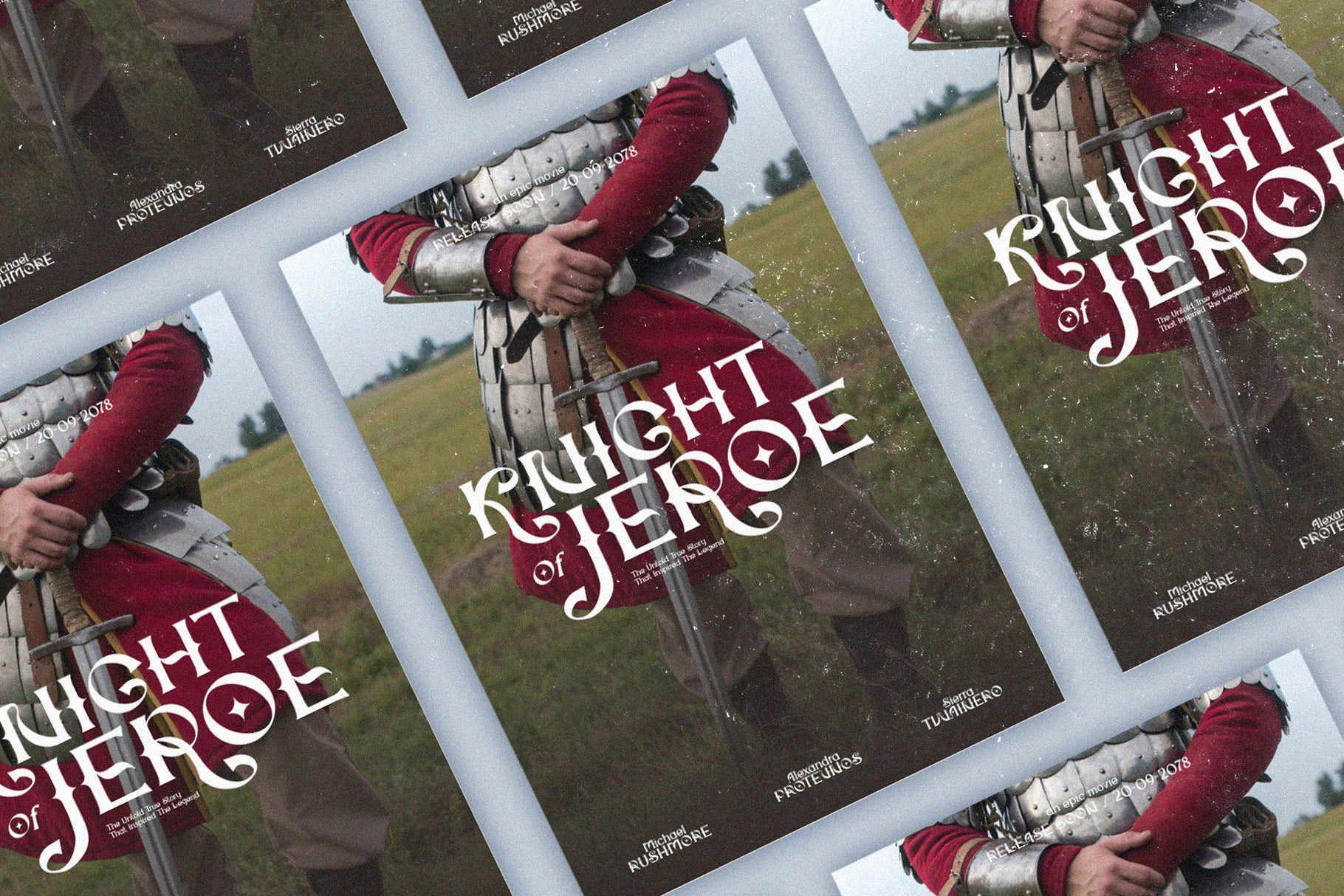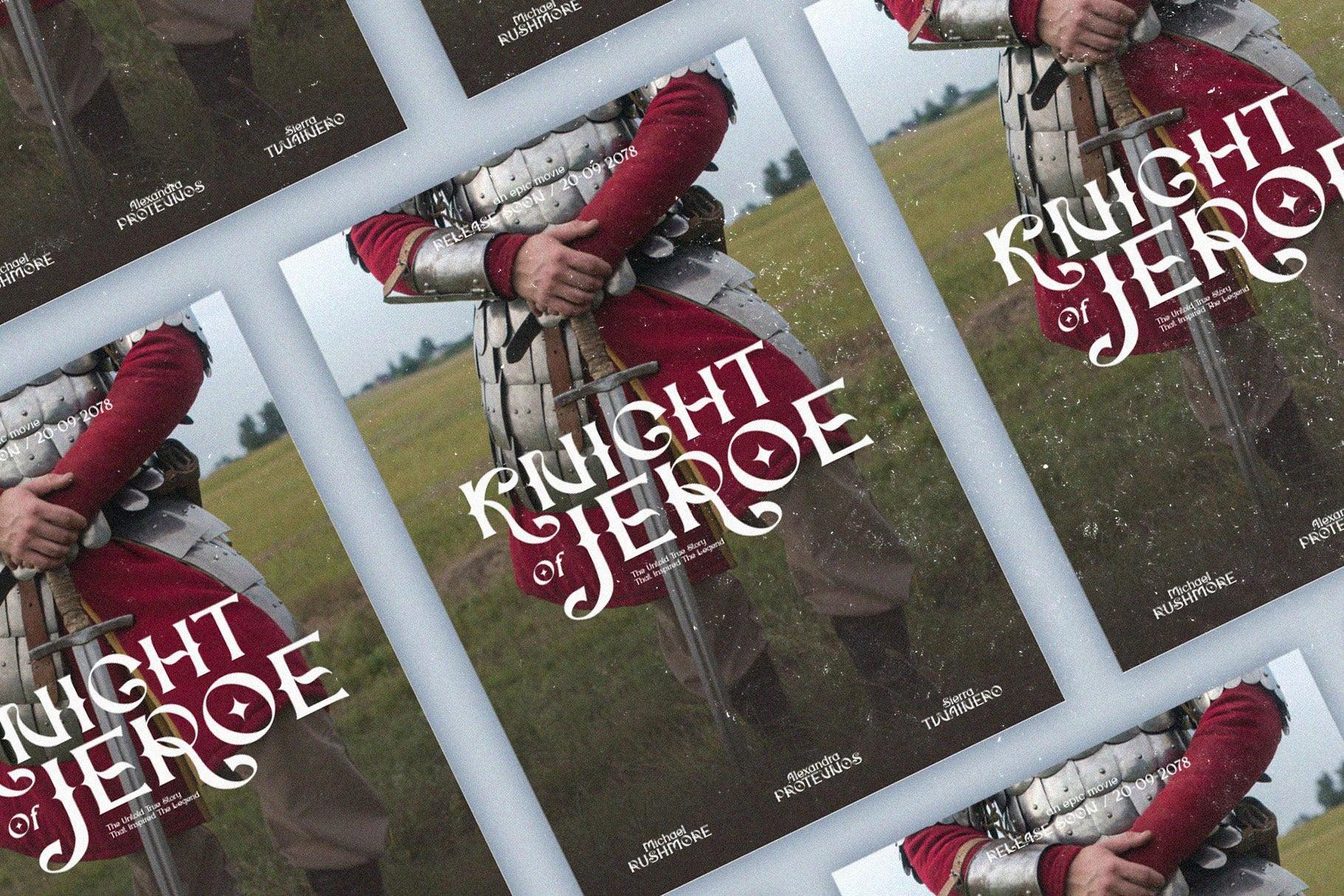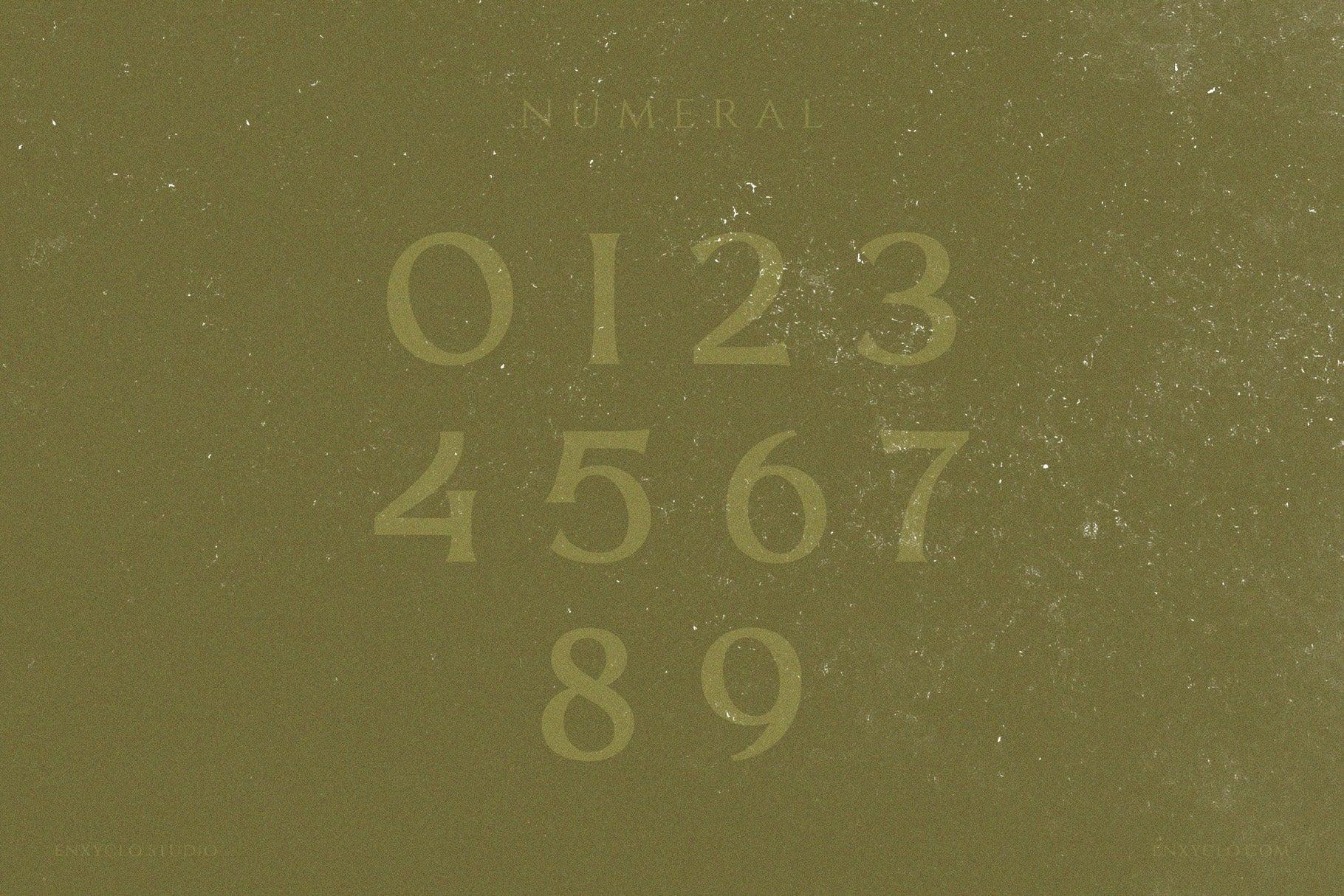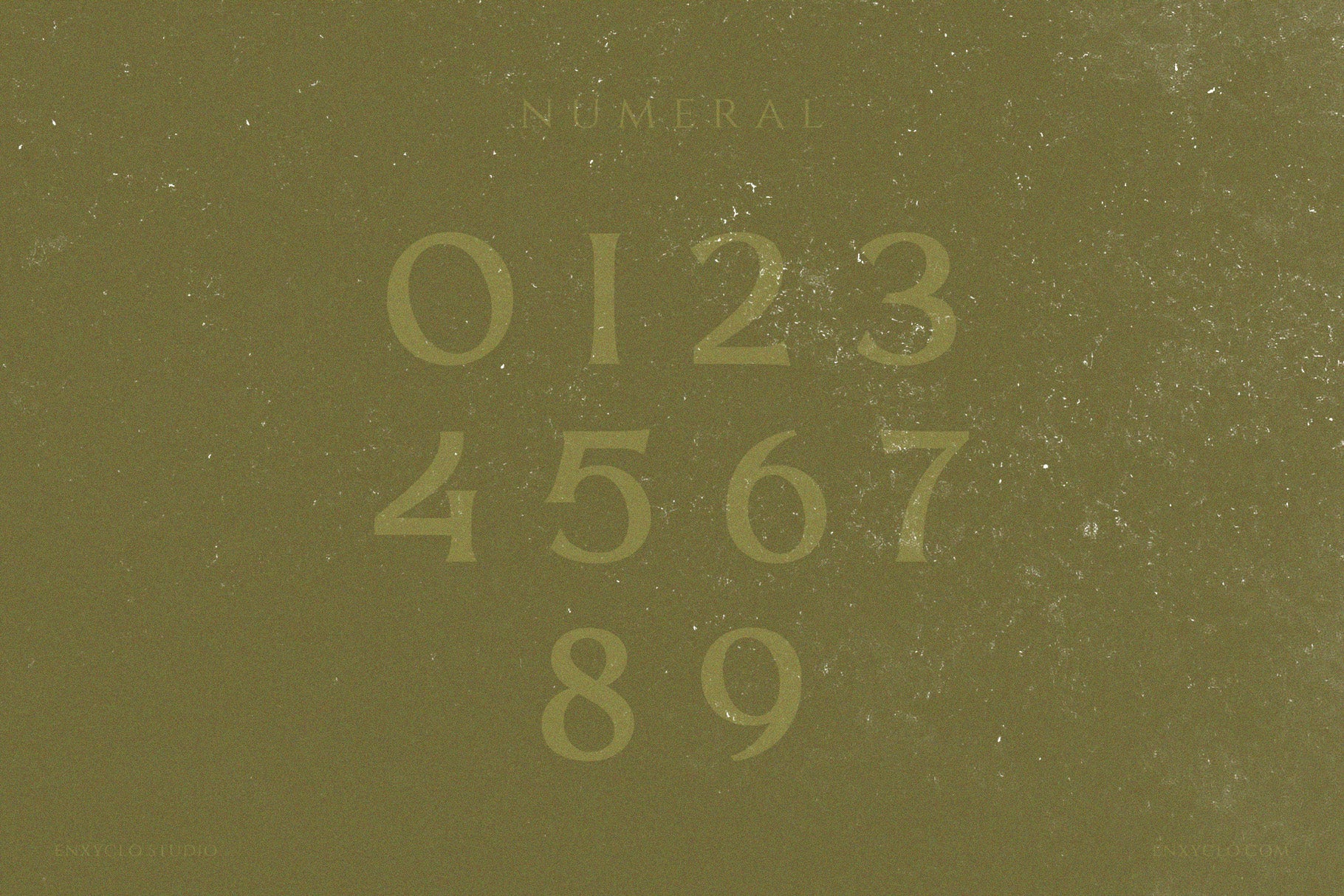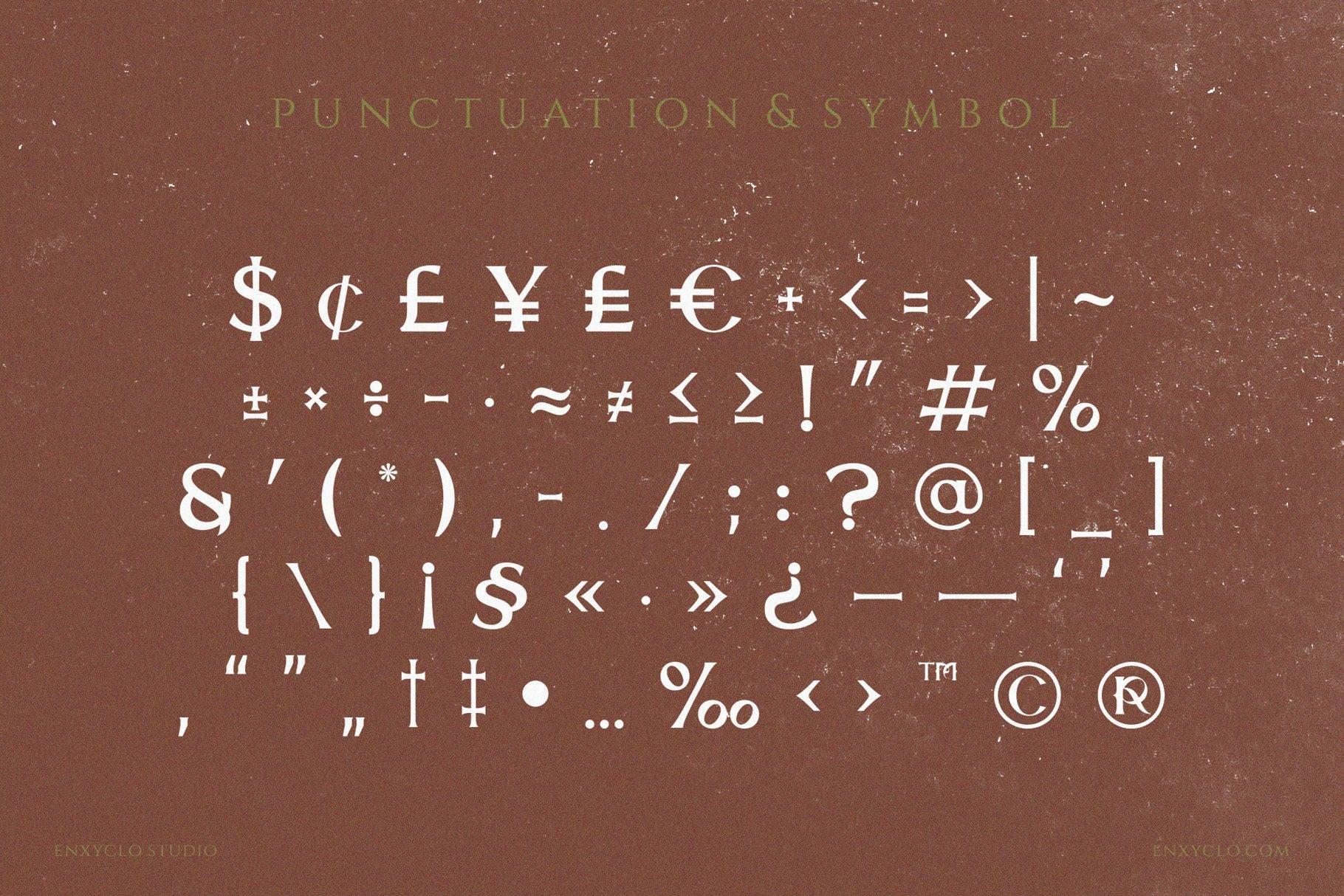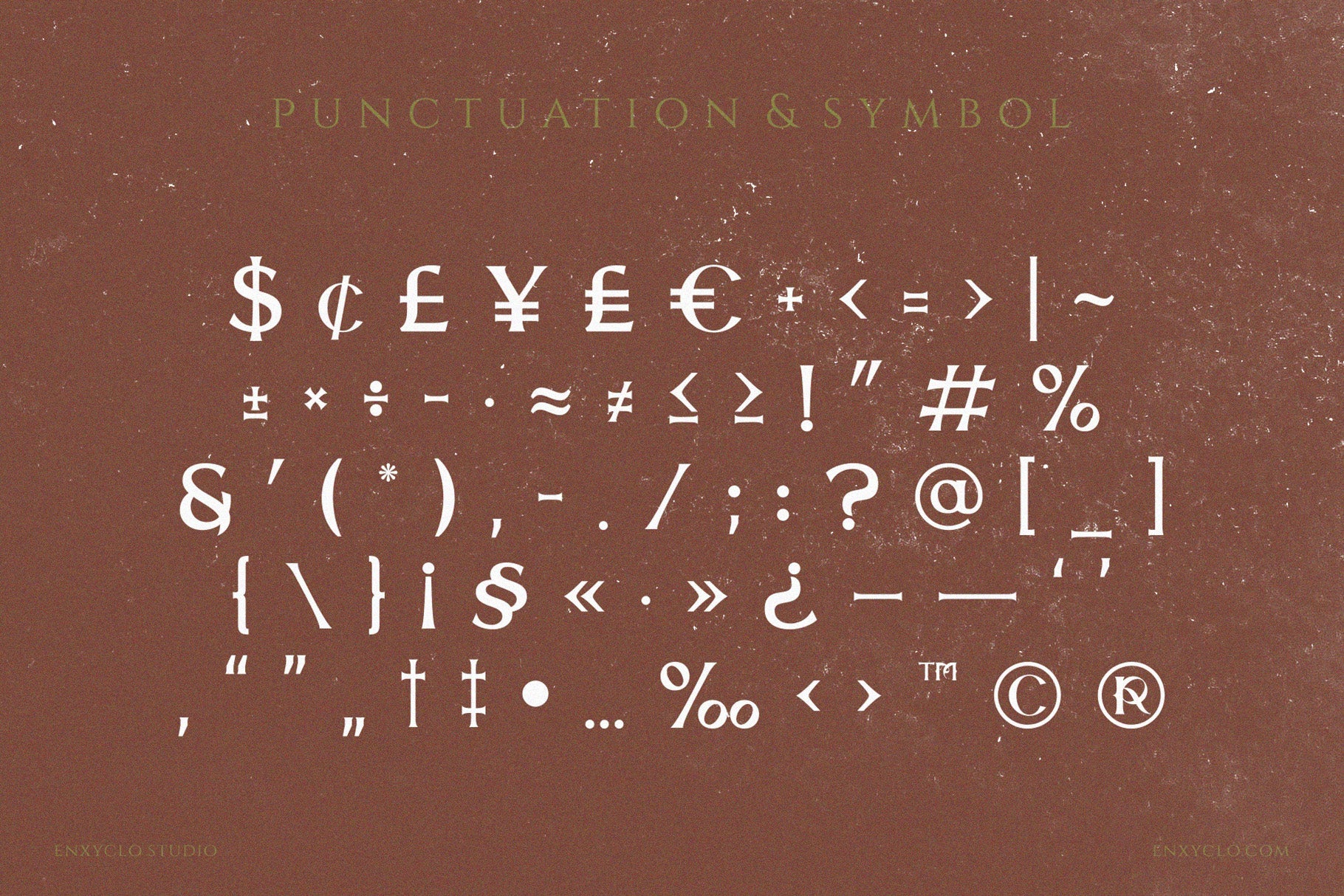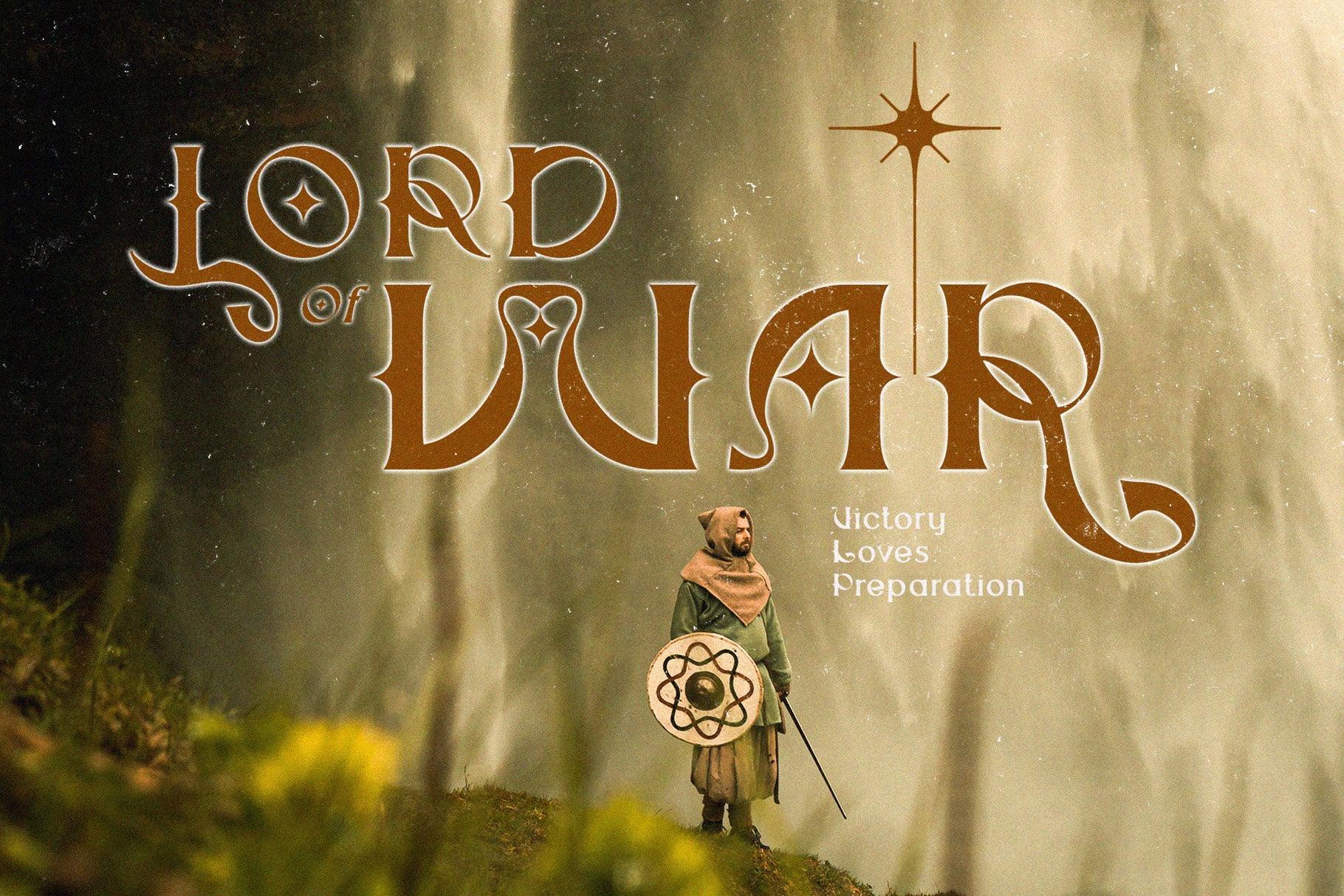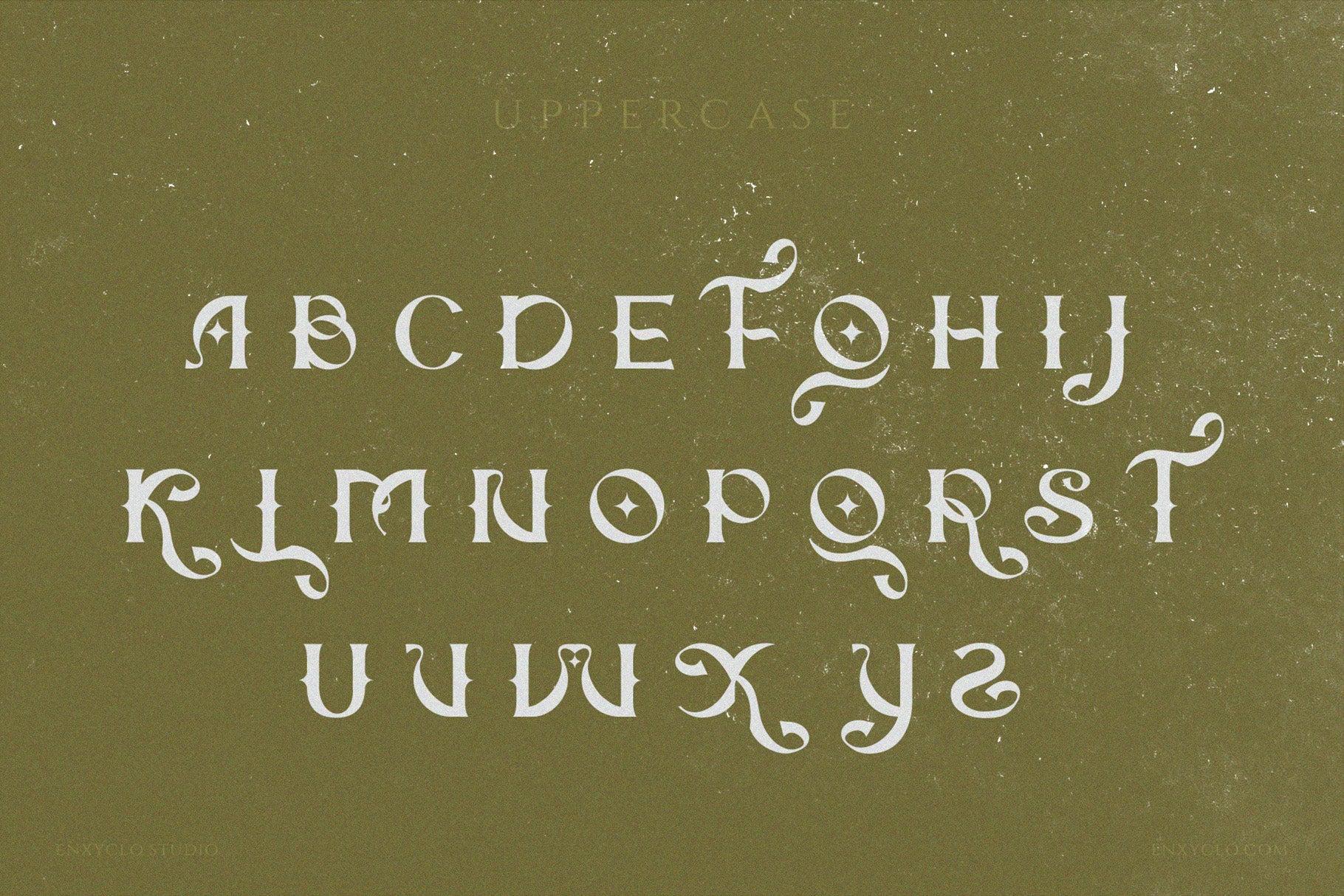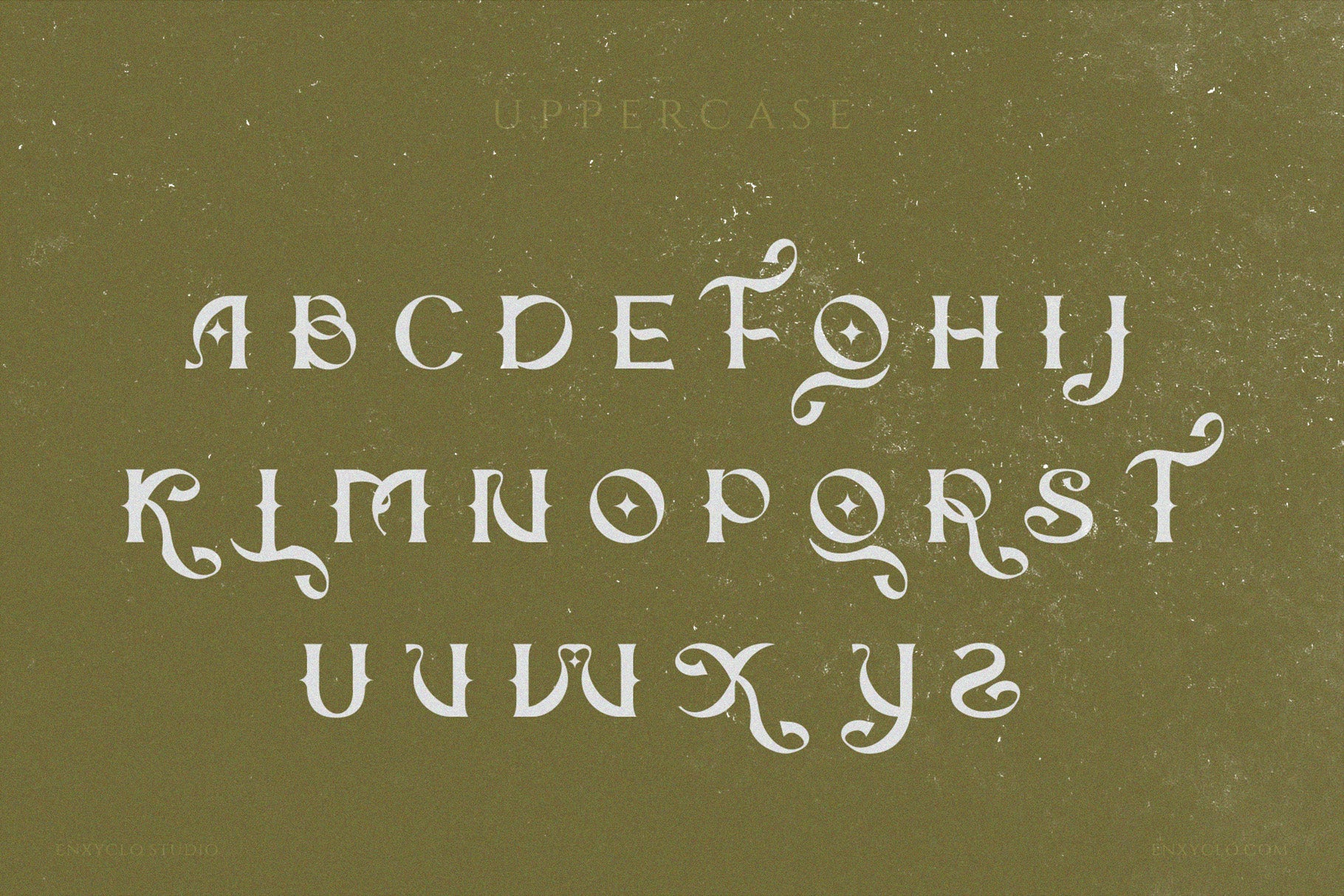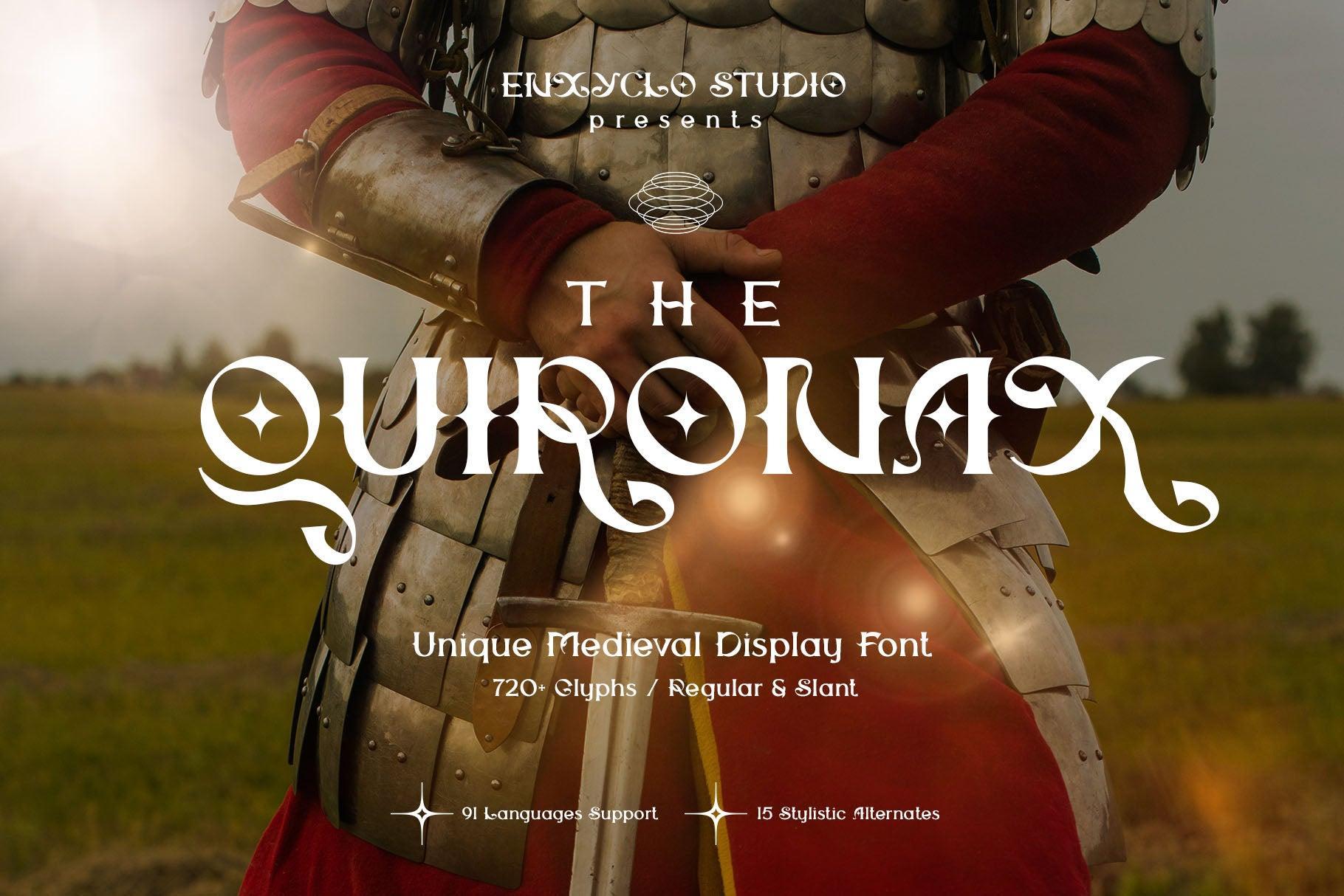
THE QUIRONAX - Medieval Font
THE QUIRONAX is a unique medieval display font designed for large point sizes, available in True Type (TTF) and Open Type (OTF) formats, as well as Web Open Font Format (WOFF1 & WOFF2). It features two styles (Regular and Slant), 361 glyphs per style, uppercase and lowercase letters, ligatures, alternates, numerals, punctuation, symbols, currency, and multilingual support.